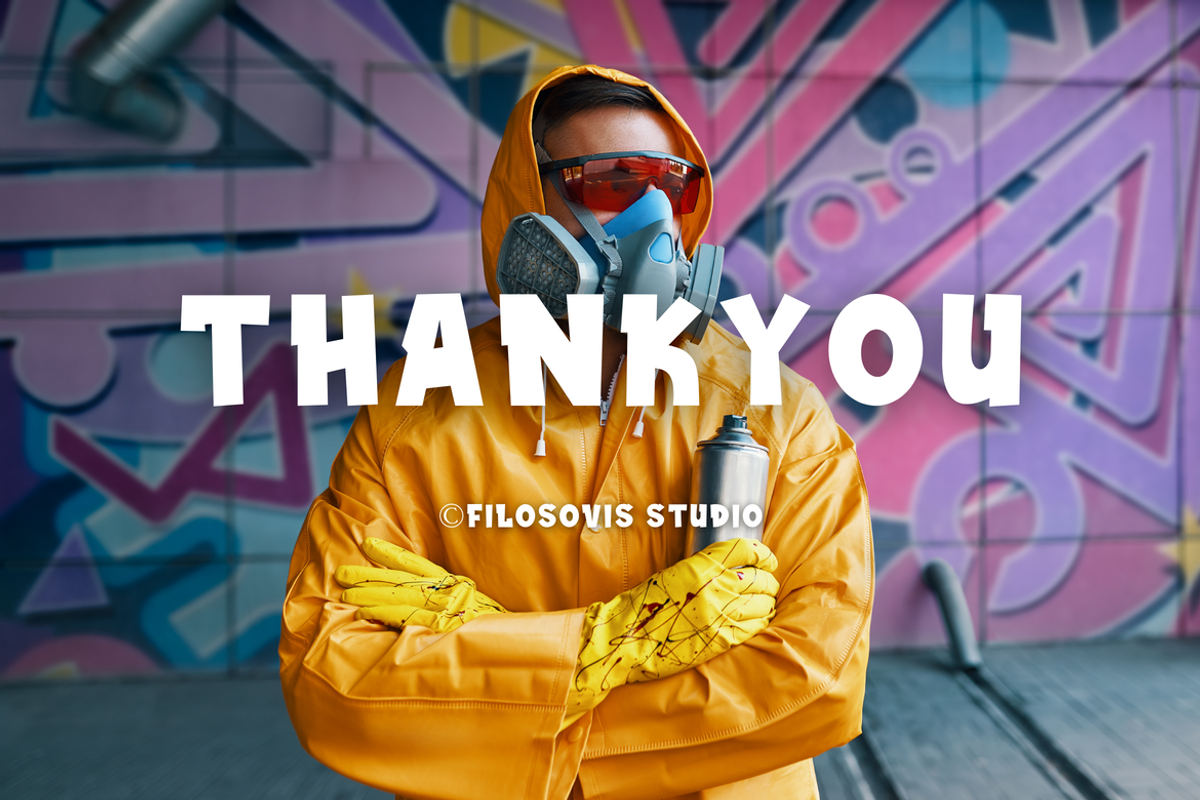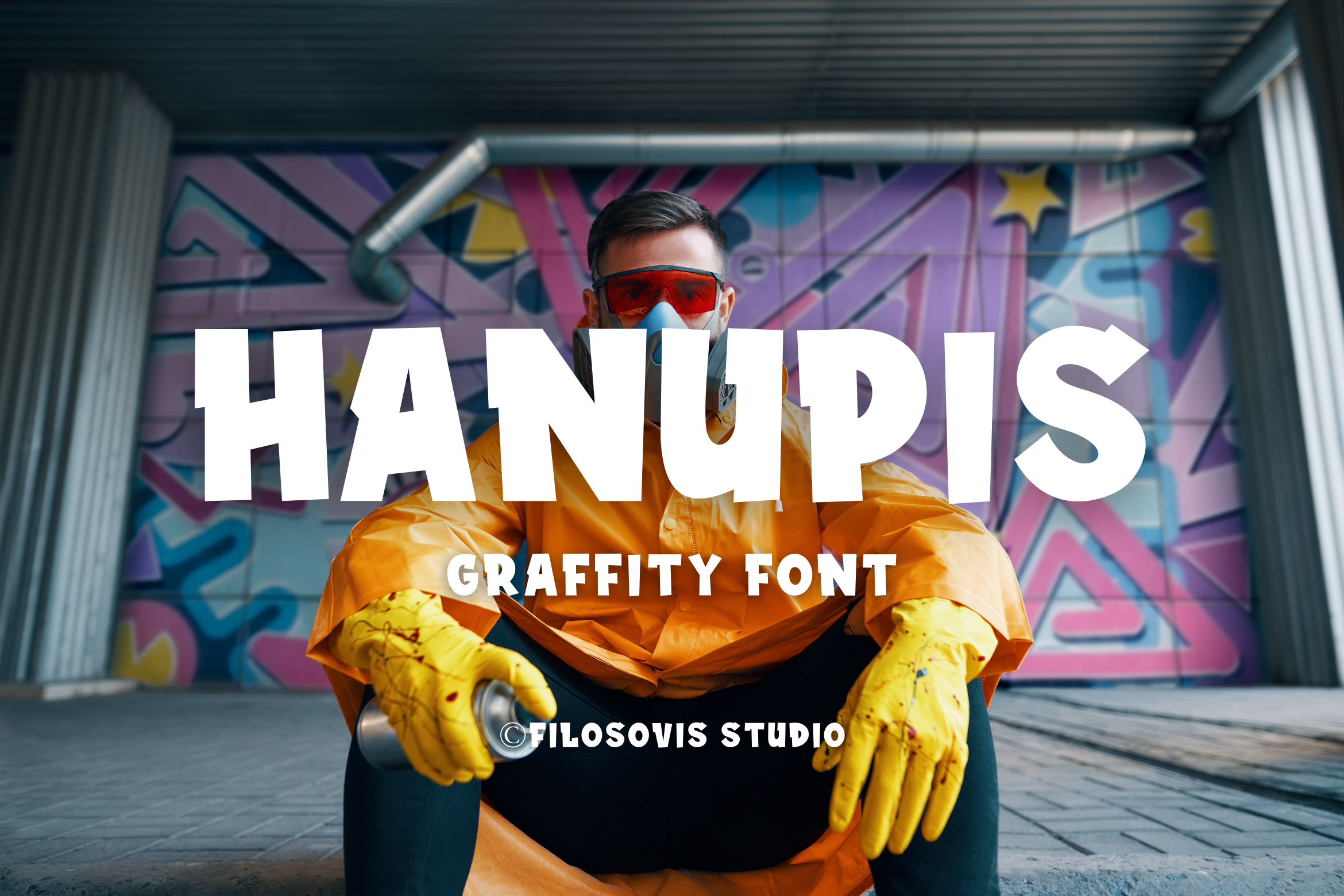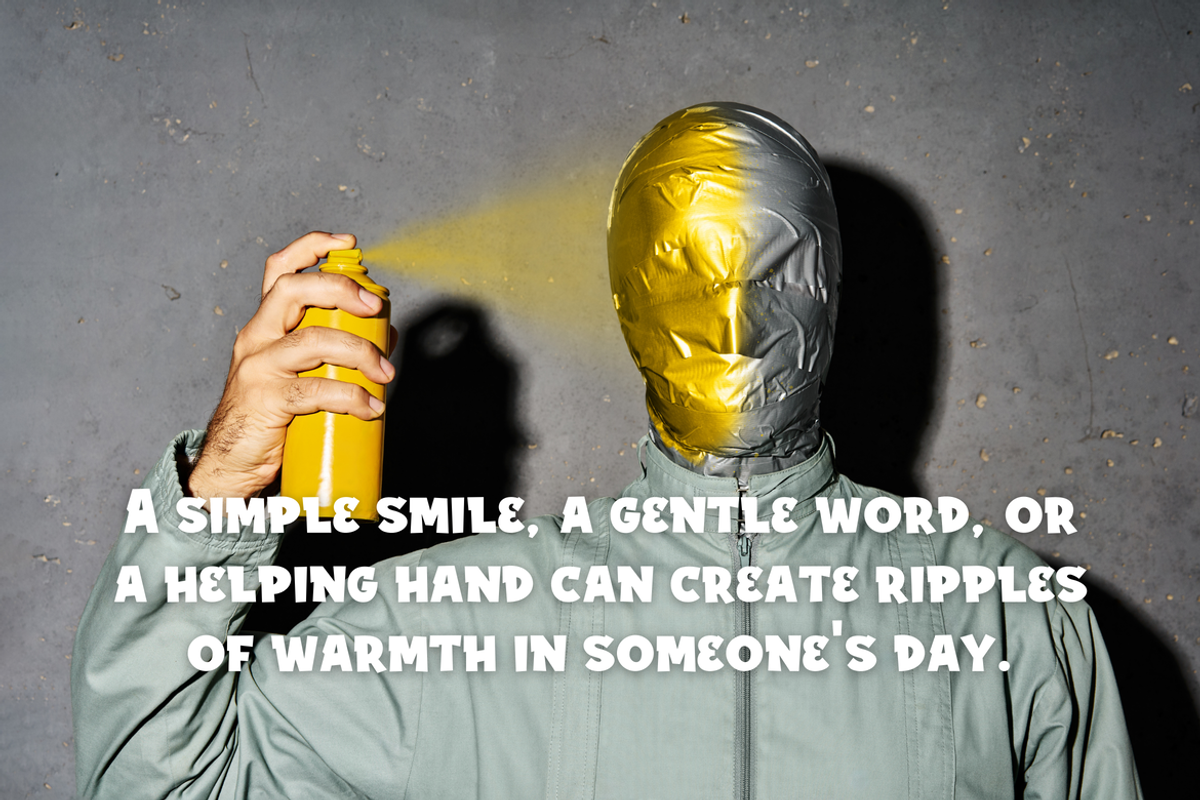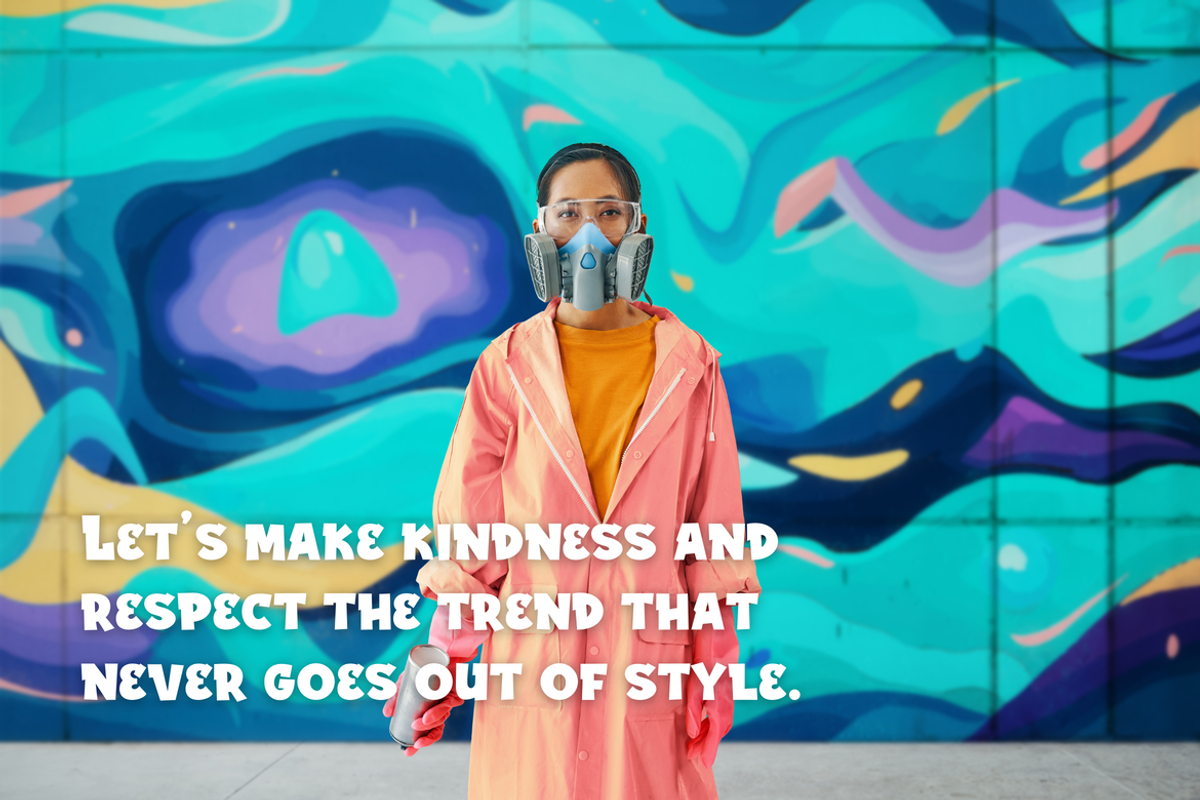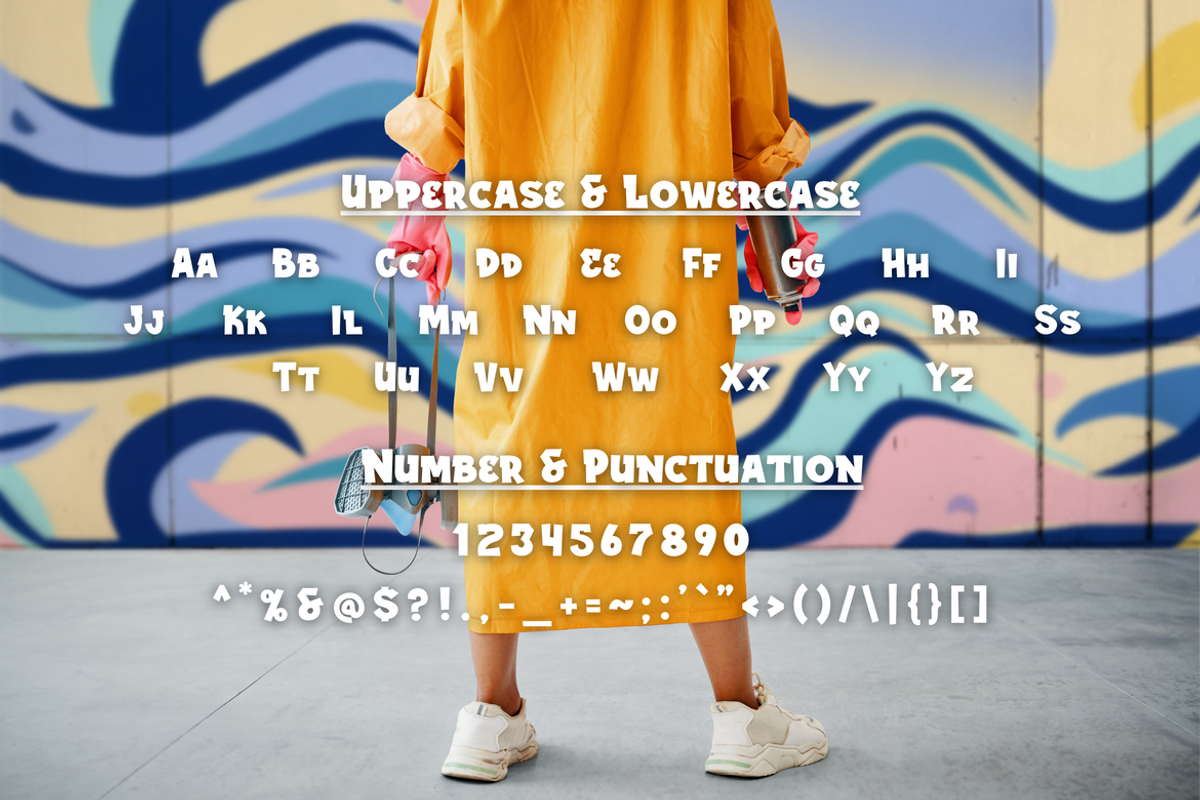
Hanupis | Graffiti Font
Hanupis – the ultimate Comic Graffiti Font that bursts with energy and playful charm. Designed to inject a dose of fun and dynamism into your projects, Hanupis is perfect for those who seek a bold and vibrant typographic style that stands out in any crowd.